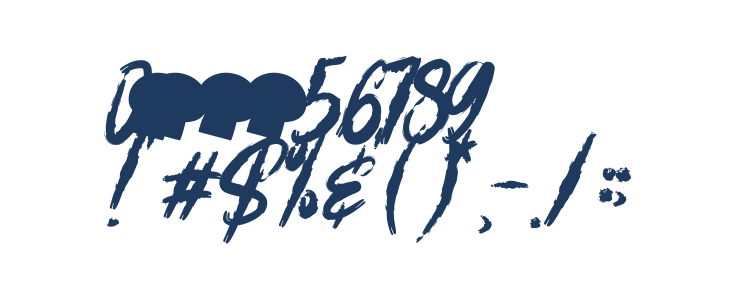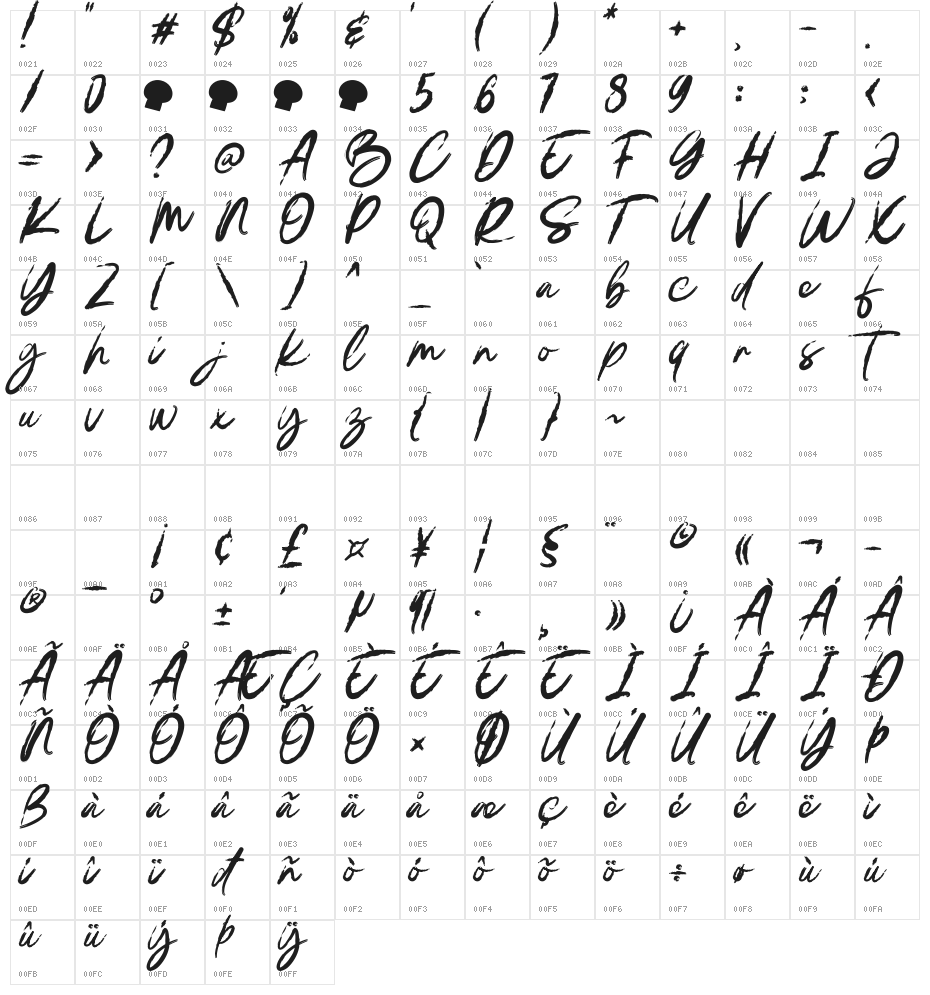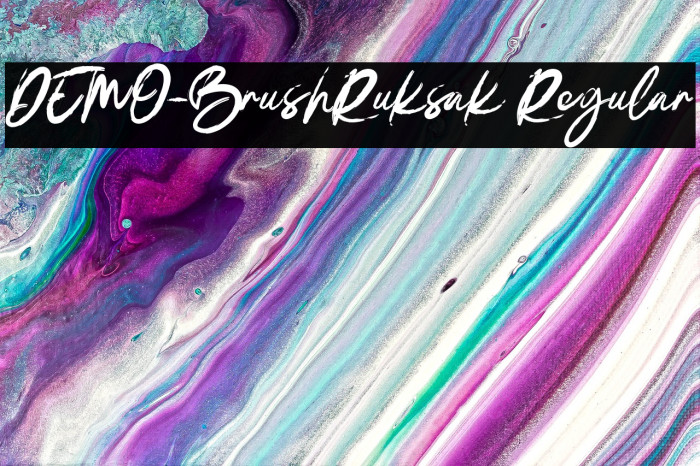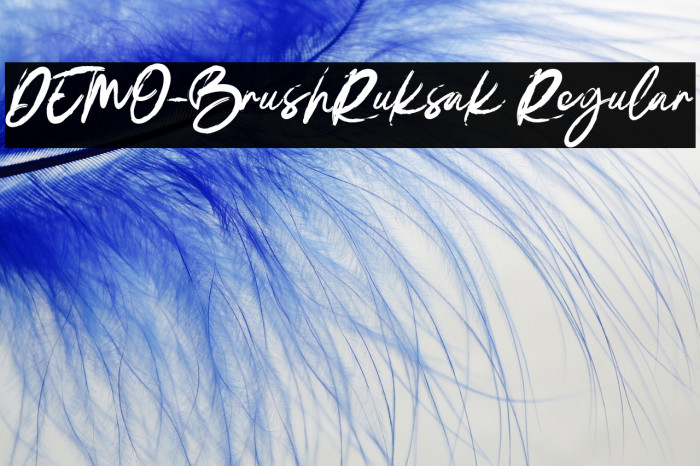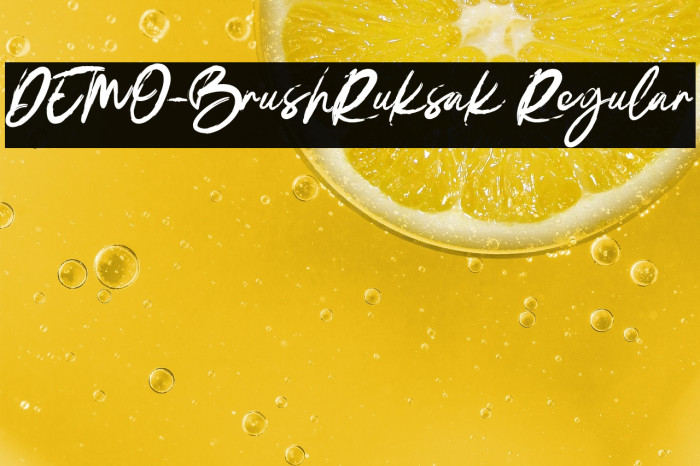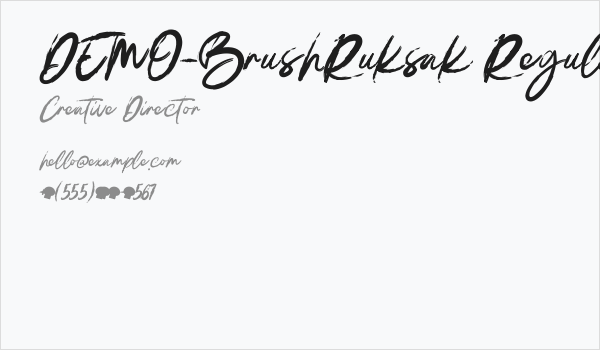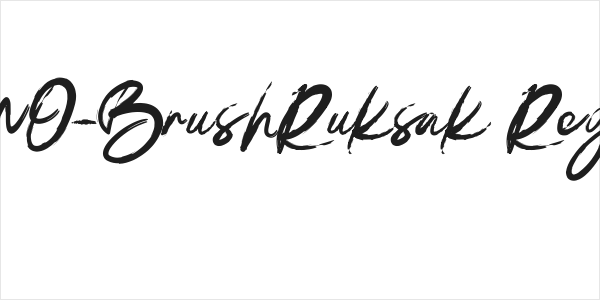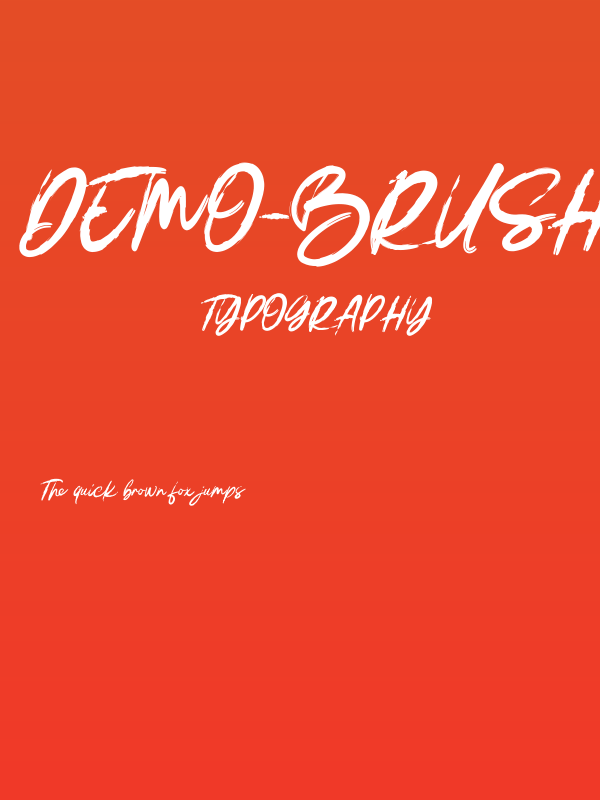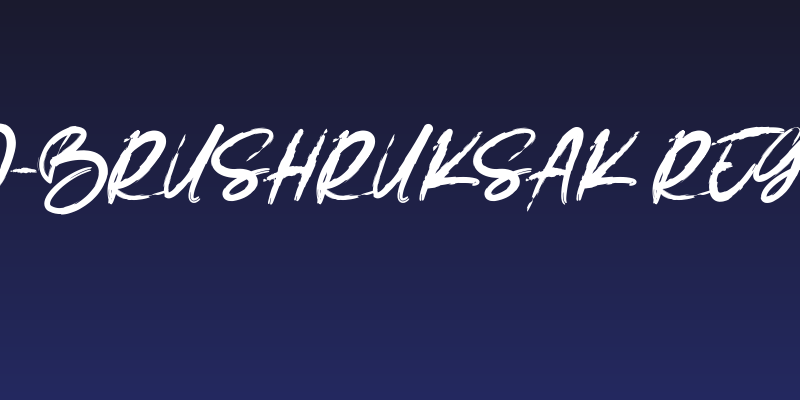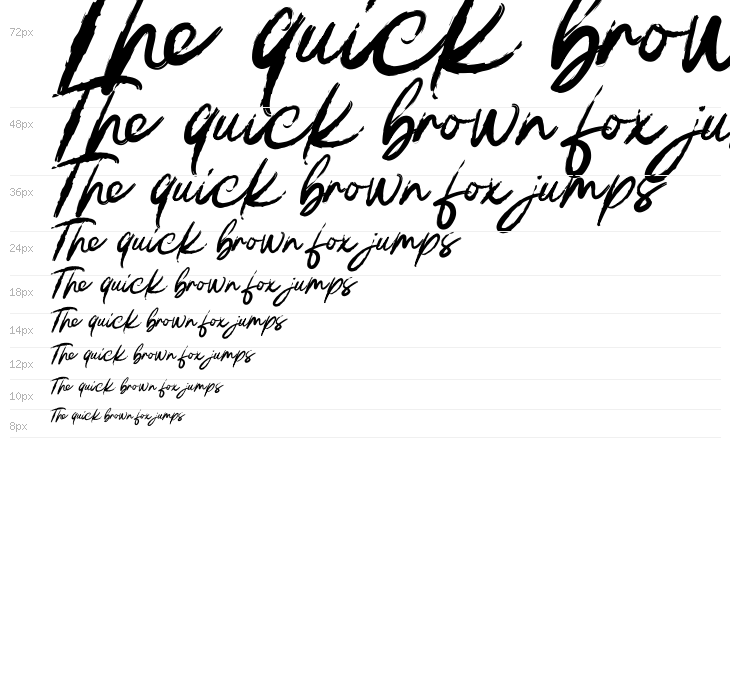
DEMO-BrushRuksak Regular Font
DEMO-BrushRuksak Regular Description
This font exhibits a dynamic and expressive brush script style, characterized by its fluid and energetic strokes. The letters are crafted with a natural, hand-painted appearance, giving it a lively and artistic feel. The uppercase and lowercase letters flow seamlessly, with varying stroke thickness that adds to its organic look. The numbers and special characters maintain the same brush-like quality, ensuring consistency across all glyphs. This font is perfect for projects that require a personal and creative touch, such as invitations, posters, and branding materials. Its bold presence makes it stand out, while the irregularities in the strokes add a unique charm.